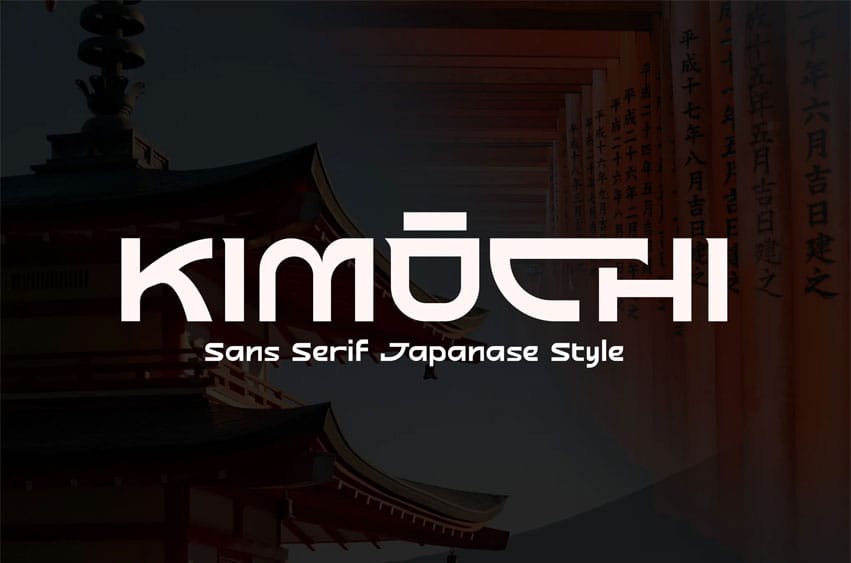
Kimochi Font Sans Serif Japanese Style is a bold and modern sans serif typeface inspired by traditional Japanese aesthetics. Its clean geometric lines and subtle cultural flair make it perfect for projects that aim to blend Eastern elegance with contemporary design.
Ideal for branding, posters, headlines, packaging, and digital media, Kimochi delivers both impact and style with a unique cultural touch.